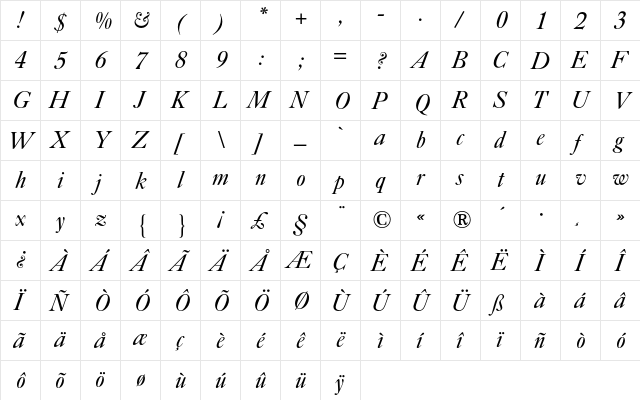
Caslon Four Seventy One BQ Regular
Design Context for Caslon Four Seventy One BQ Typeface
Caslon Four Seventy One BQ takes a measured approach to typography — its balanced proportions and neutral character make it a reliable workhorse for both digital and print work.